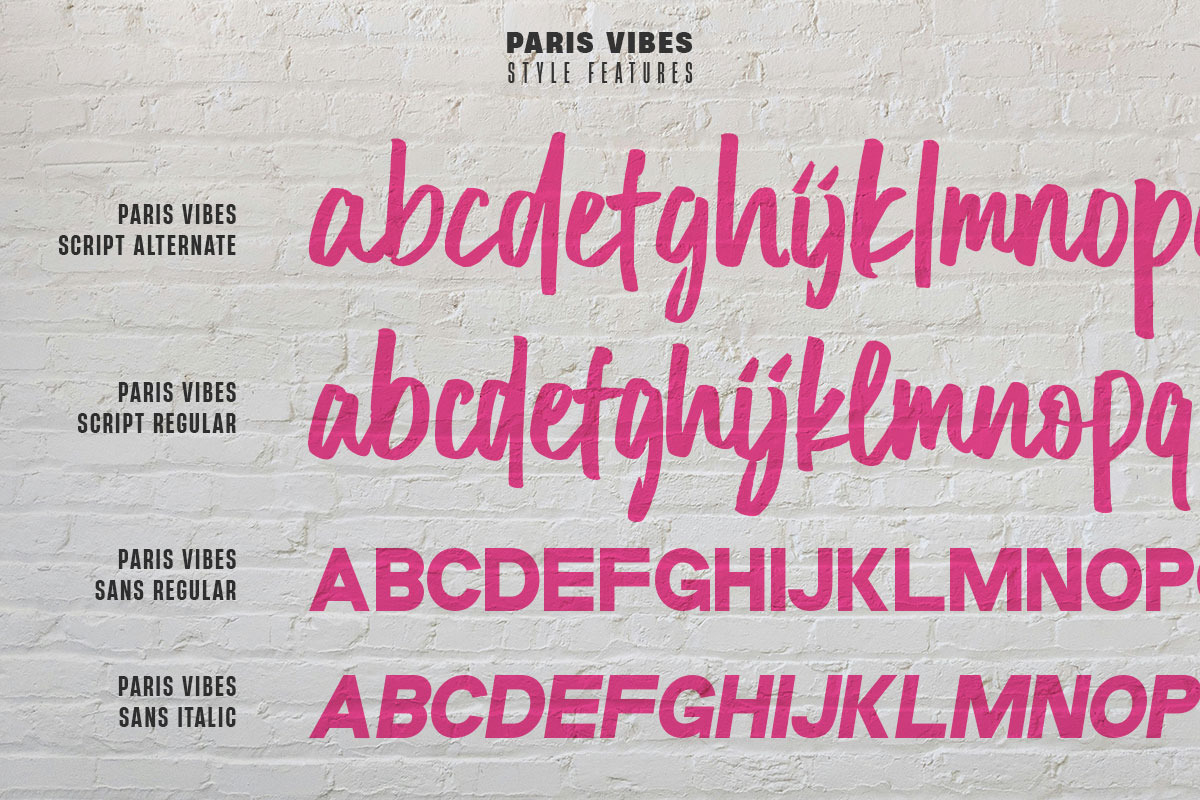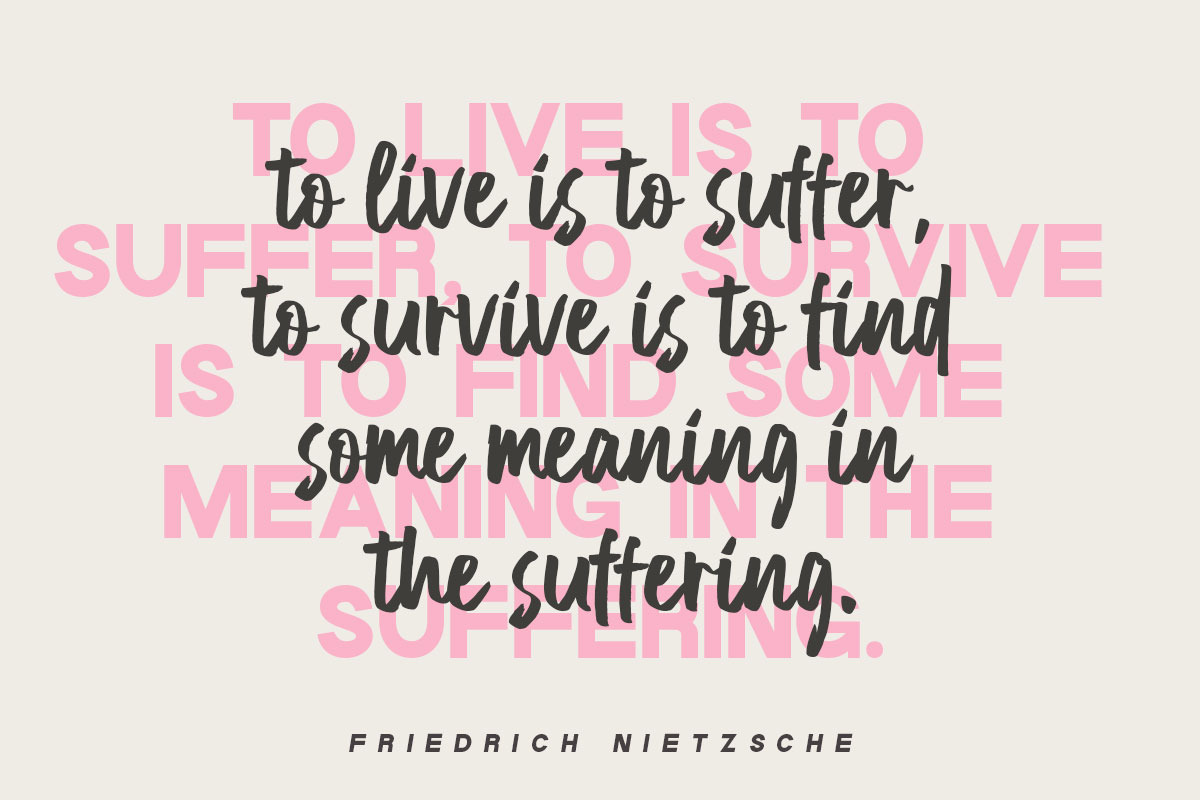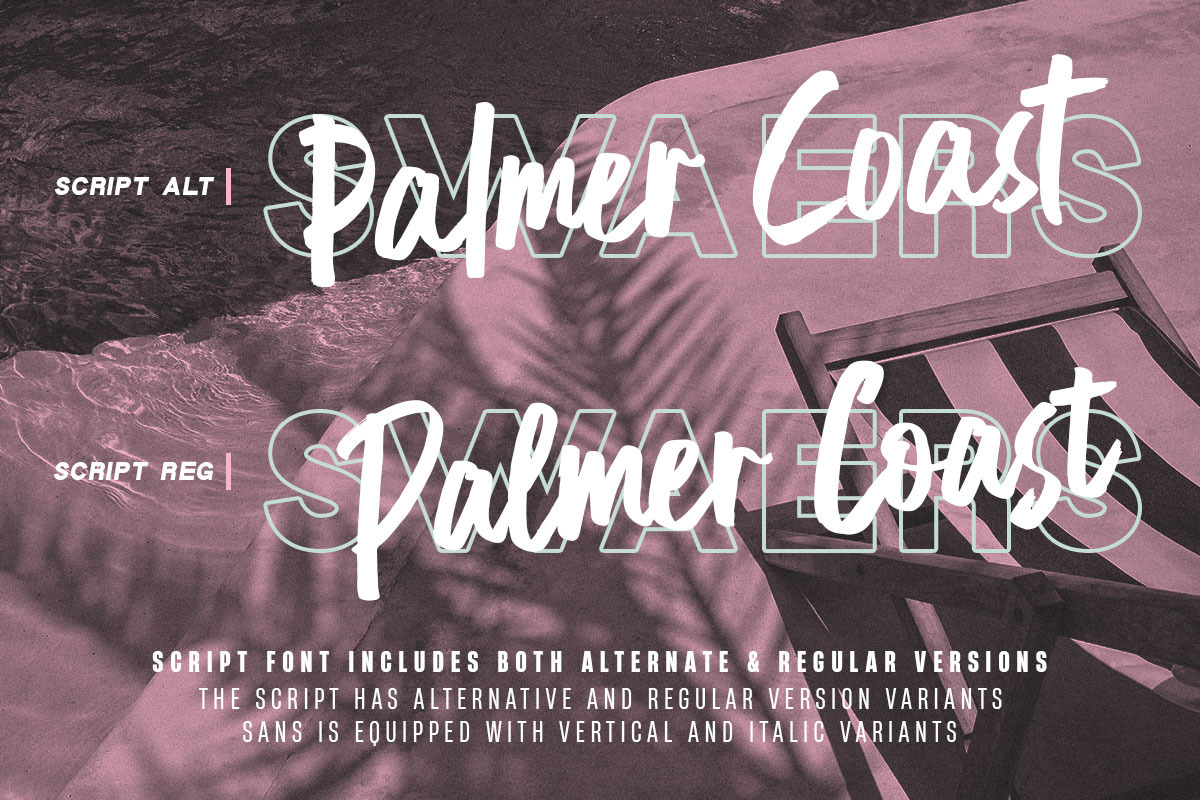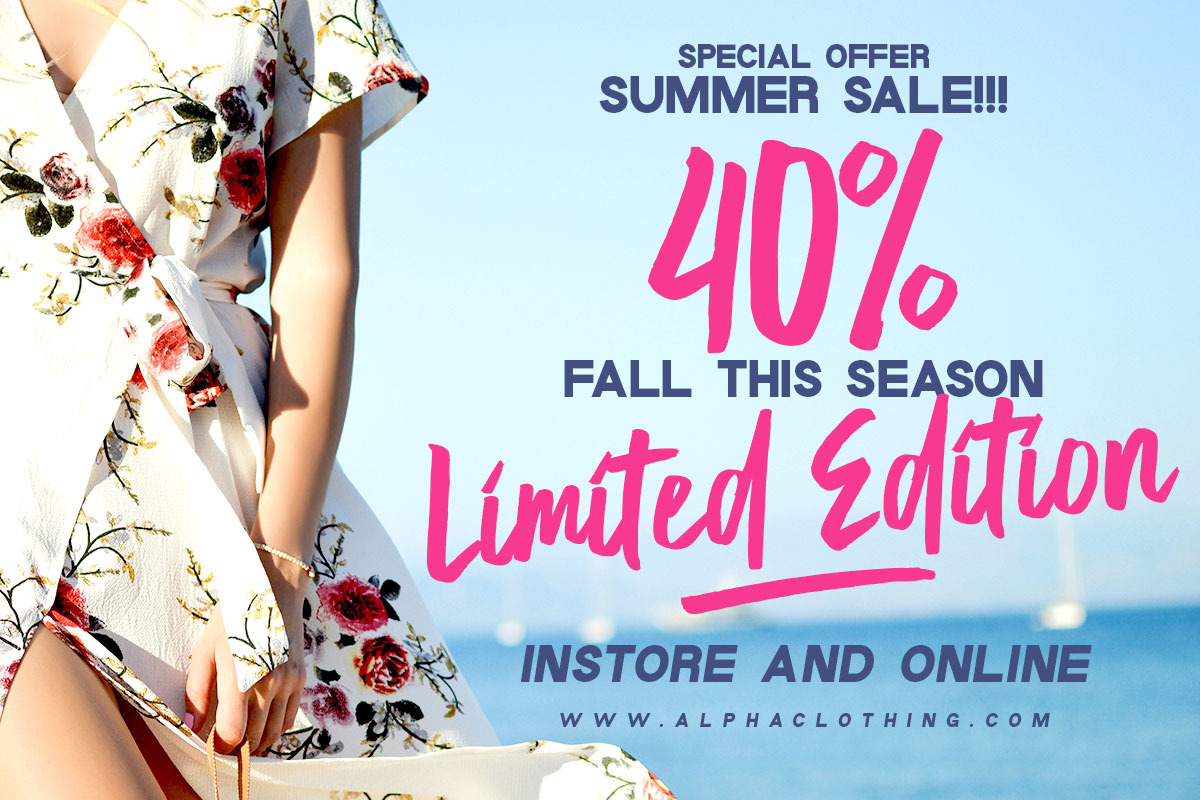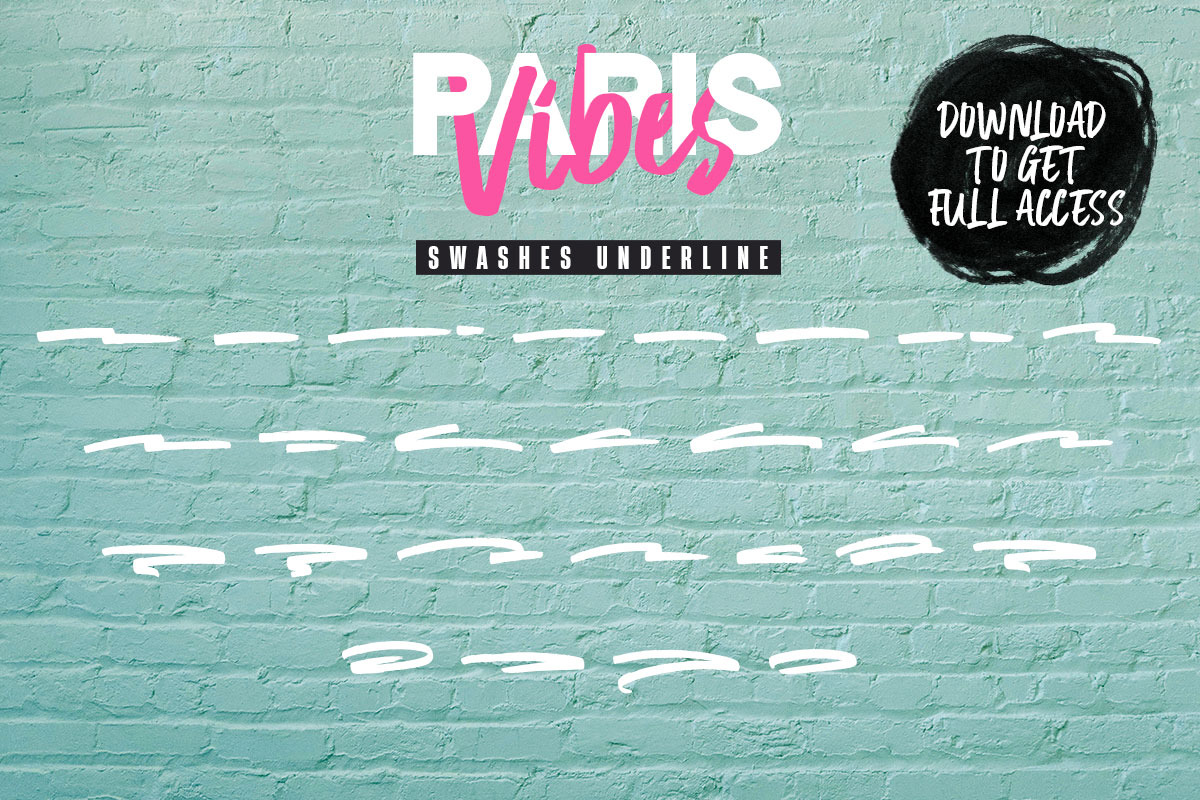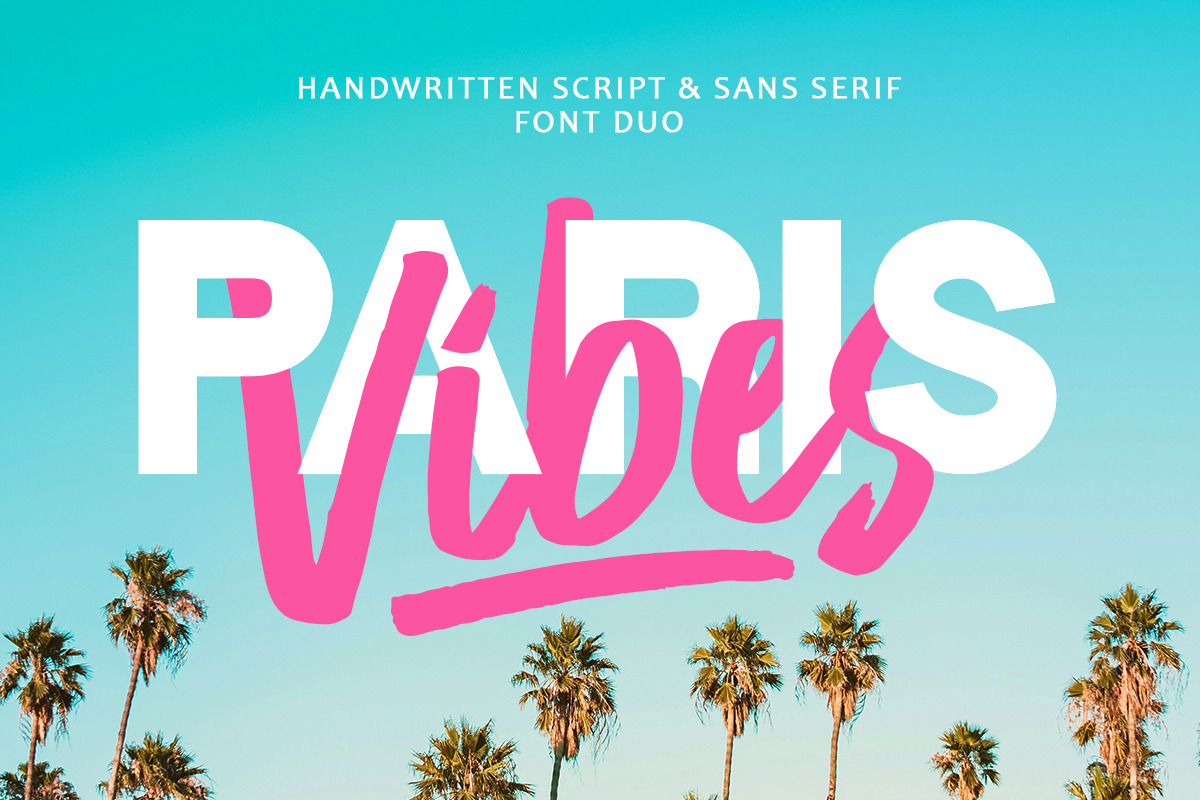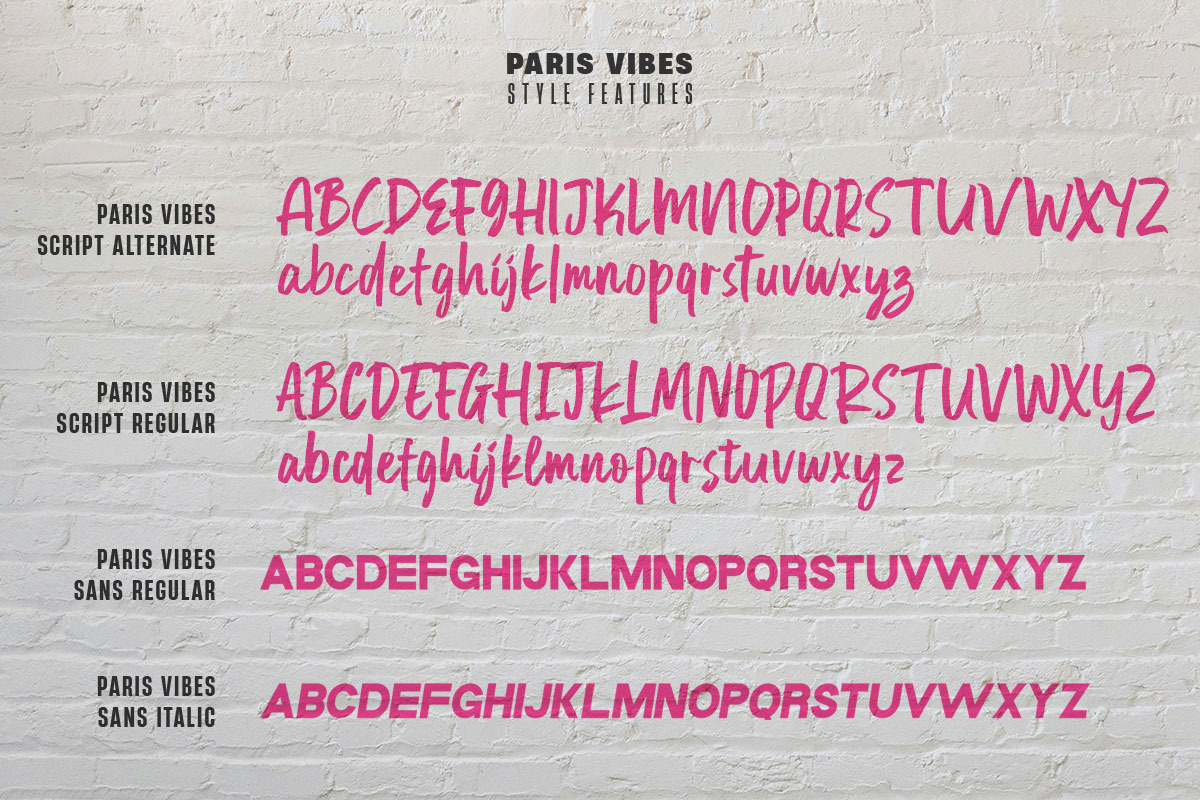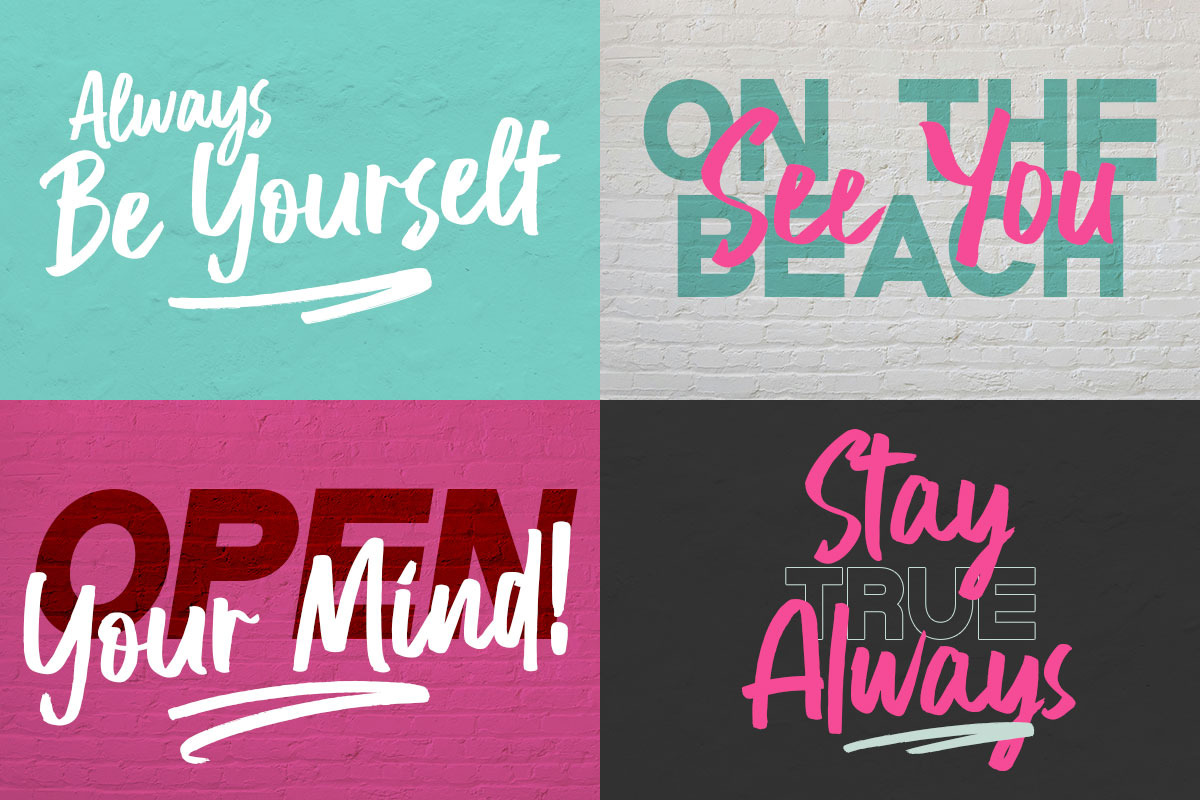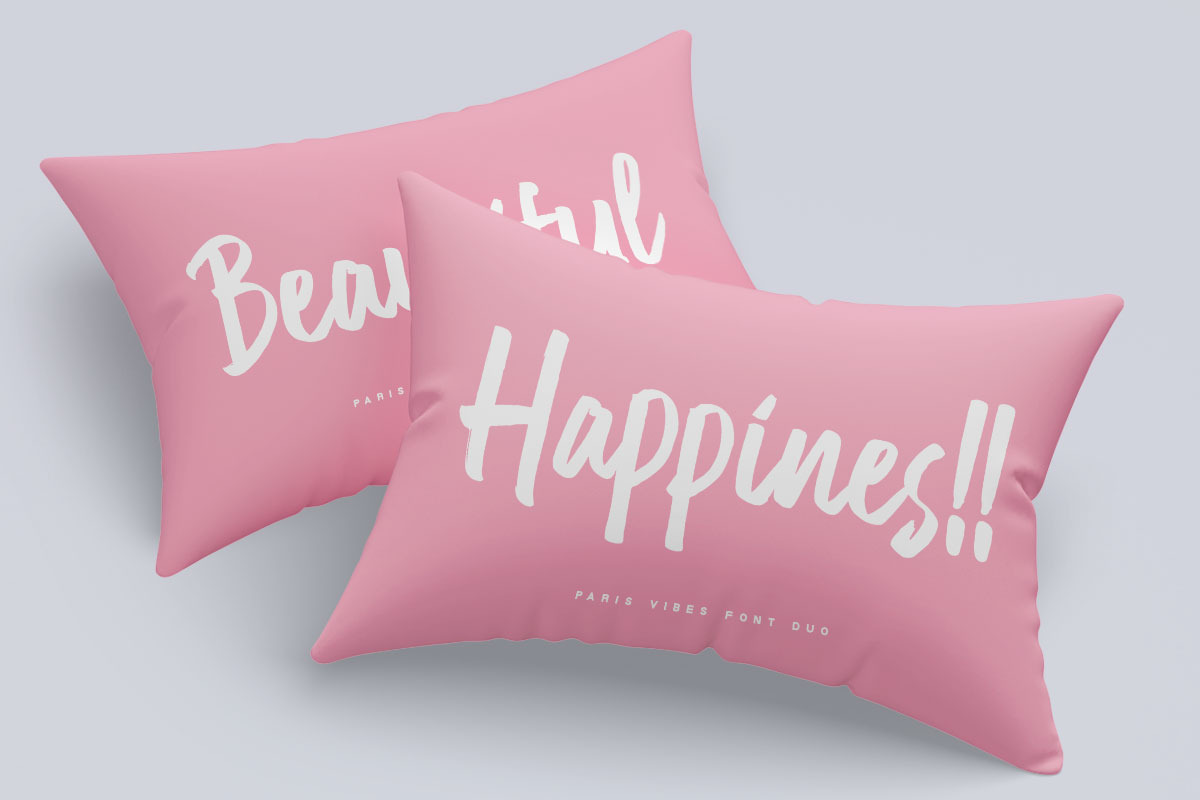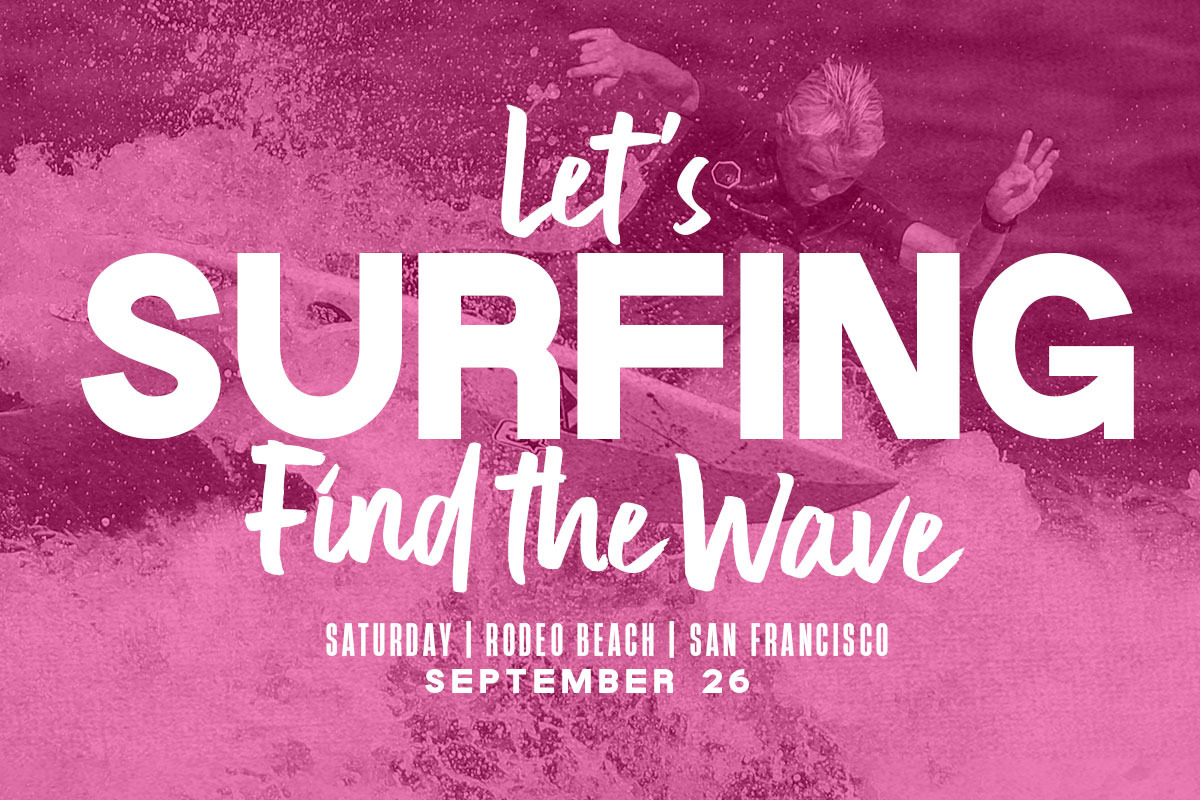
Paris Vibes Font Duo
Paris Vibes is a new duo font that comes with a summer theme. The bold script typeface combines with sans-serif in a truly stunning all caps design with clean lines and tall, bold characters giving it a charming retro feel that's perfect for a summer-themed design.
Paris Vibes has several different styles, namely Paris Vibes Sans Regular, Paris Vibes Sans Italic, Paris Vibes Sans Outline, Paris Vibes Outline Italic, Paris Vibes Script Regular, Paris Vibes Alternates, and Paris Vibes Swashes. Each of these fonts can bring the flavor of the font. unique summer in your project.